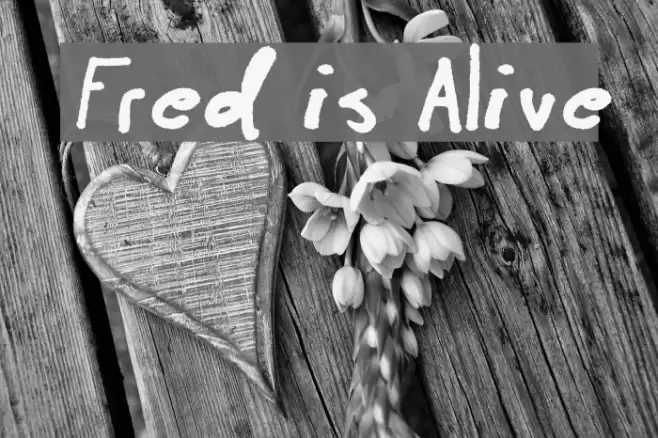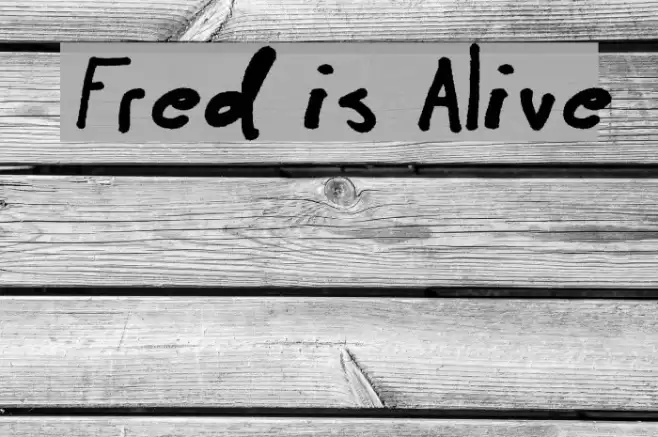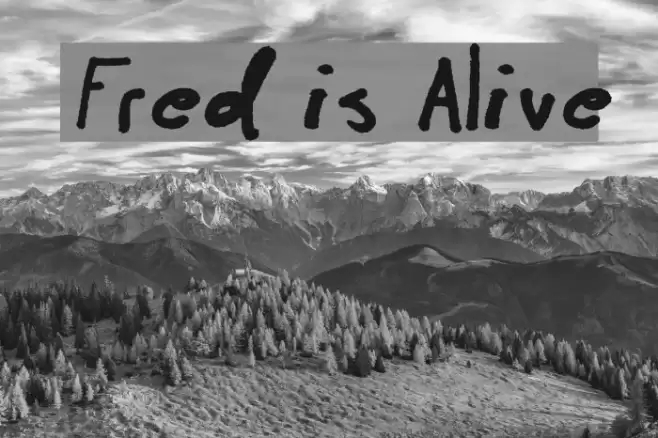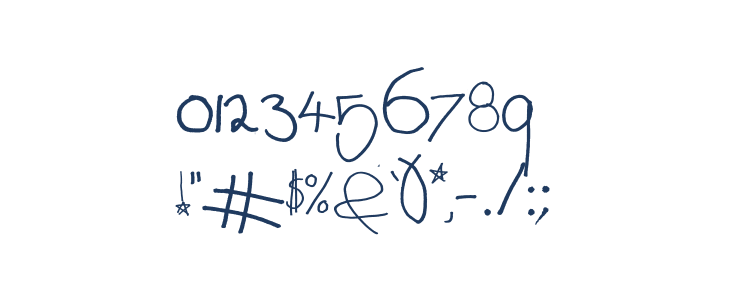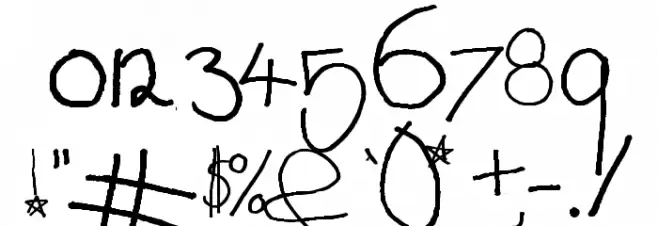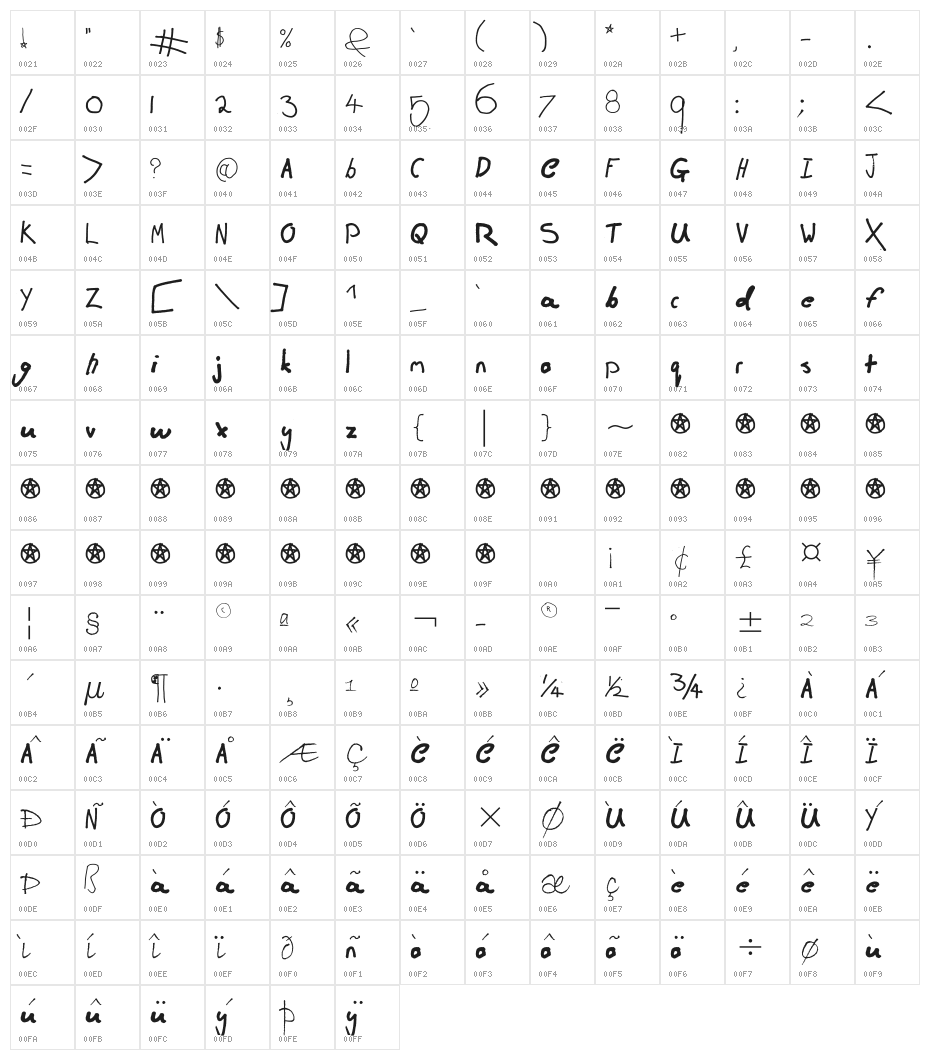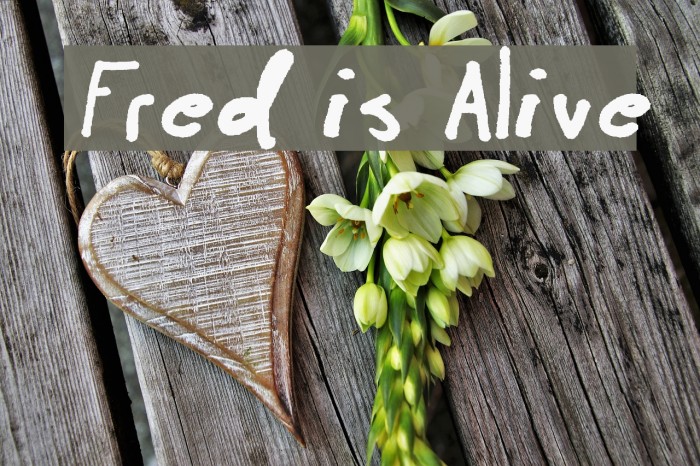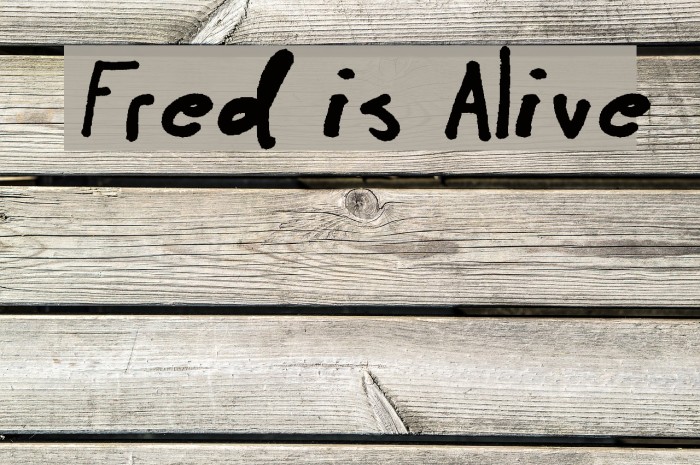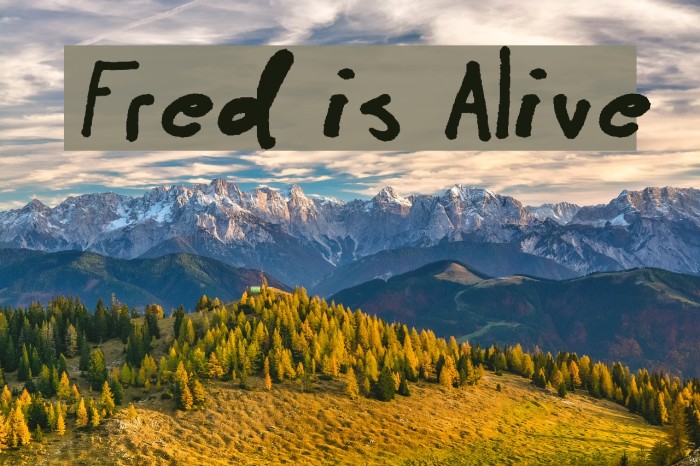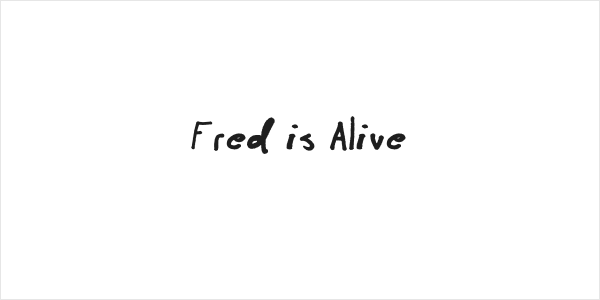
Fred is Alive Font
Fred is Alive Description
This font exudes a playful and casual handwritten style, characterized by its irregular and spontaneous strokes. The letters vary in size and angle, giving it a dynamic and lively appearance. The uppercase letters have a bold presence, while the lowercase letters maintain a more fluid and relaxed form. Numbers and special characters follow the same informal style, adding to the font's overall charm. The font's organic and unrefined look makes it ideal for projects that aim to convey a sense of creativity and personal touch.
A playful, casual handwritten font with dynamic and irregular strokes from Uncategorized fonts.
- Proposed Projects: Ideal for creative projects such as greeting cards, personal blogs, children's books, and artistic posters.
- Overall Style: Casual, Playful
- Use Case: Logos, Headlines, Informal communications